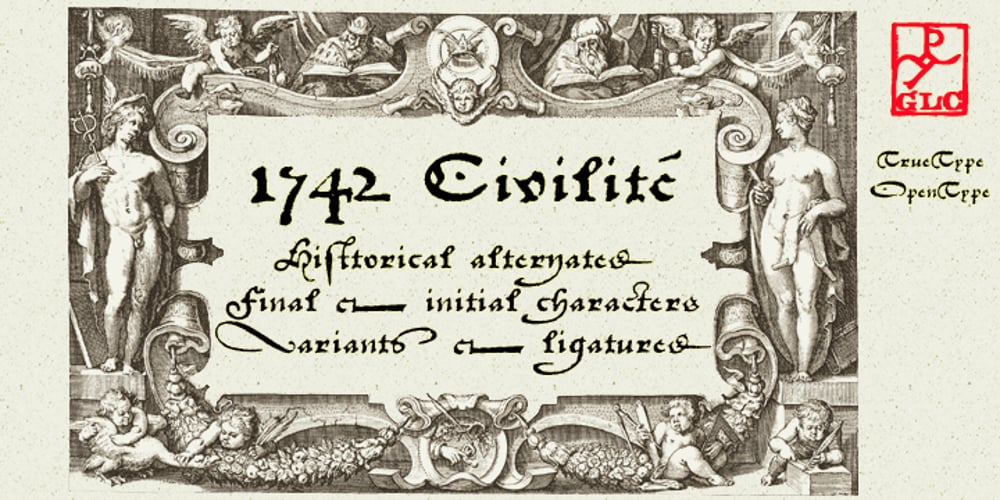
1742 Civilite
1742 Civilite font
1742 Civilite Font Family was designed by published by GLC. 1742 Civilite contains 1 styles and family package options. In the late medieval period appeared a “semi-cursive” writing, the French “écriture de civilité”. Quickly, it is carved and melted down in lead for printing. It is a very elegant running font, with numerous variants, both final than initial characters, many of the accented small characters were present in the model I was inspired by, after “Fournier Le jeune ”, in his catalogue “Modèles des caractères de l’imprimerie et des autres choses nécessaires au dit art nouvellement gravés par Simon-Pierre Fournier le jeune” published in 1742 in Paris. A render sheet, included in the font file, makes all characters easy to identify on keyboard. This font, very attractive and decorative may be used for web-site titles, posters and flyer designs, editing ancient texts, labels, greeting cards… and anything you want! It supports as easily enlargement as small size, remaining elegant and pretty.